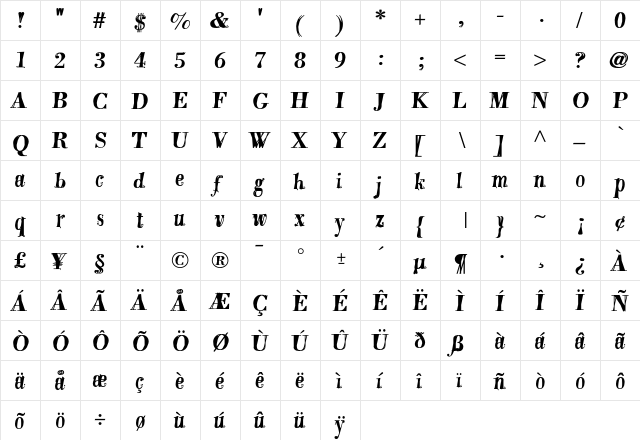
DoubleDutch Smooth
Design Context for DoubleDutch Typeface
DoubleDutch takes a measured approach to typography — its balanced proportions and neutral character make it a reliable workhorse for both digital and print work.